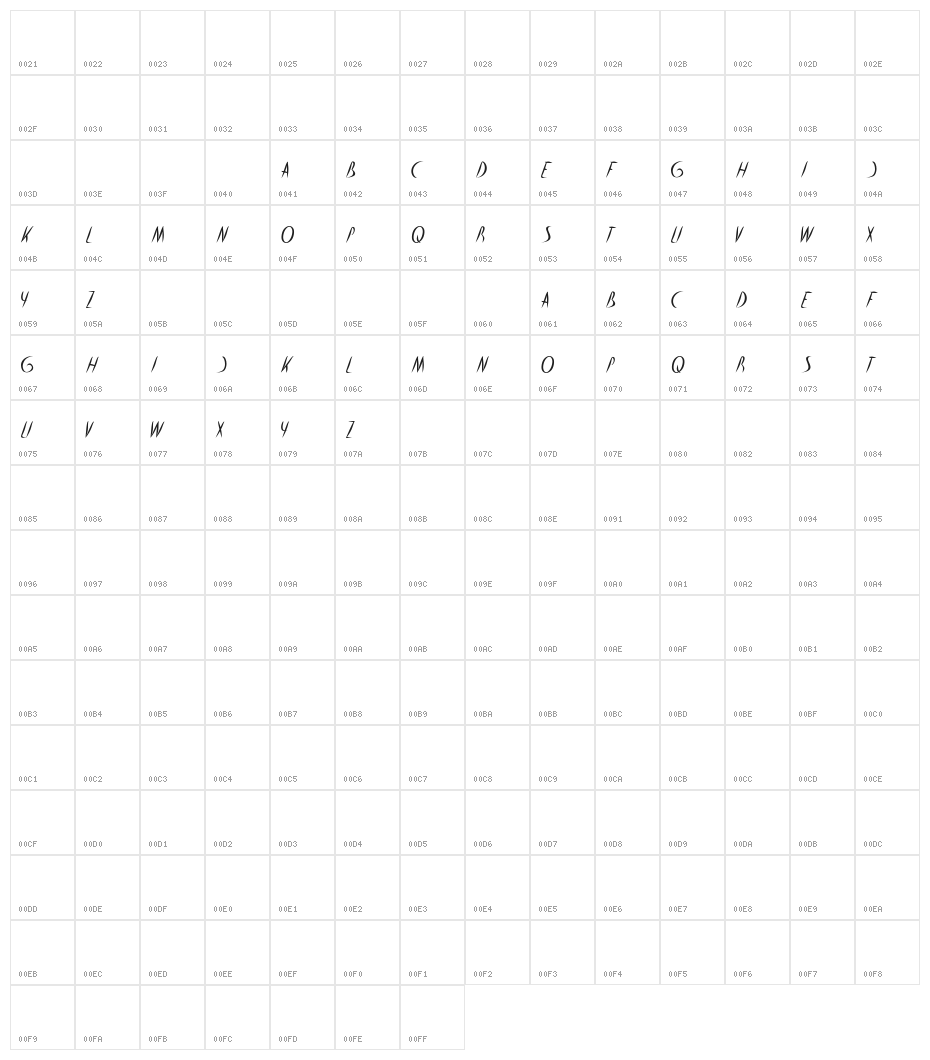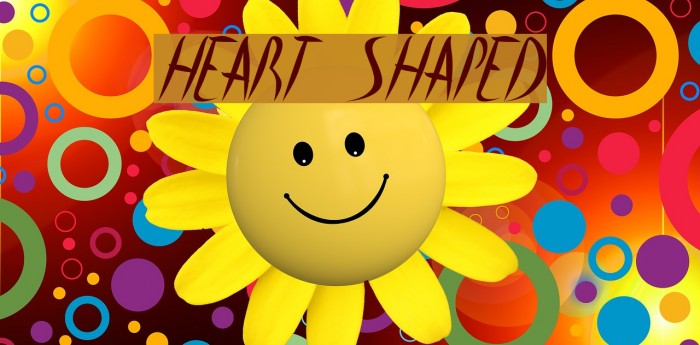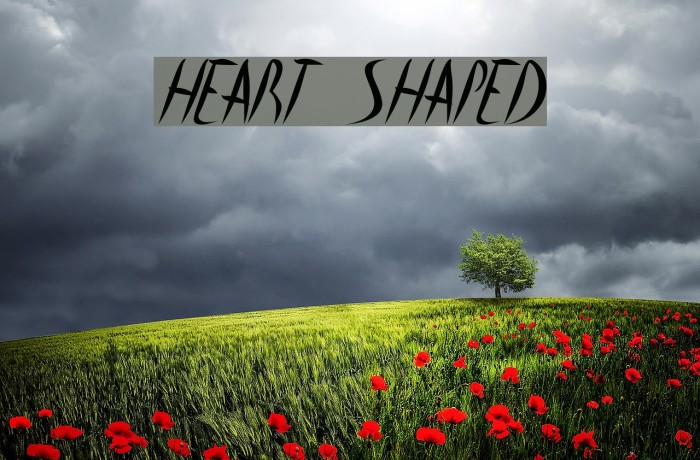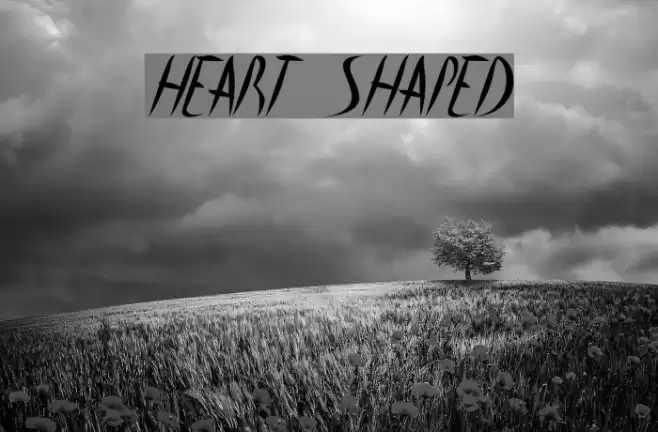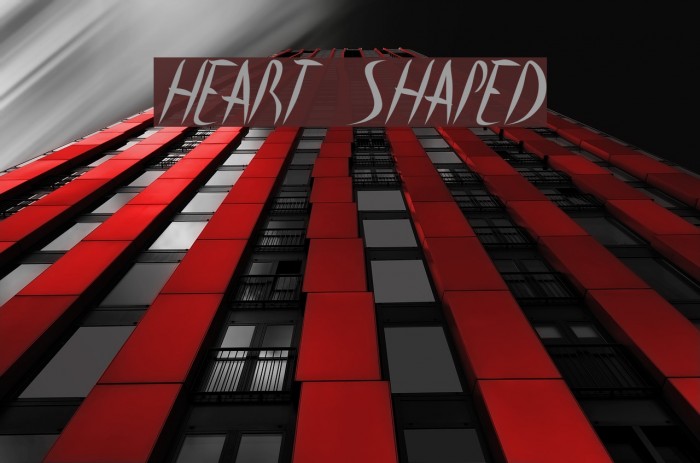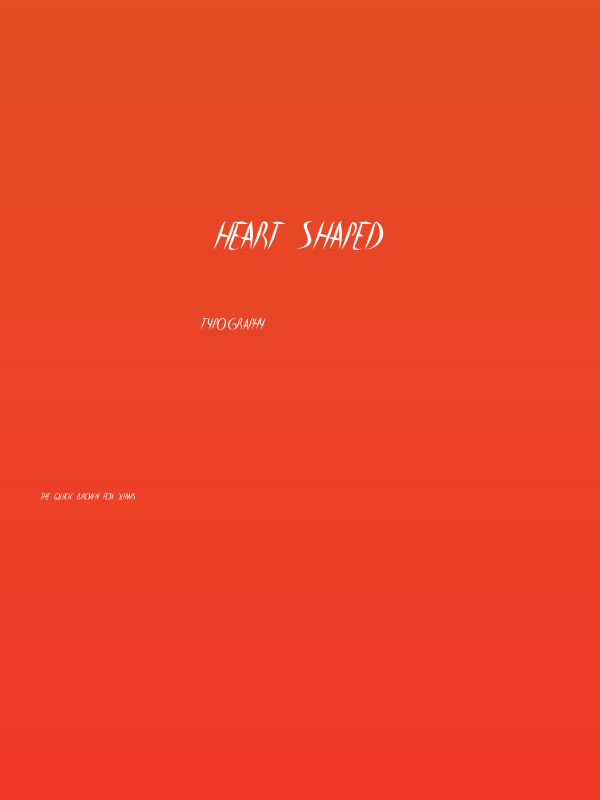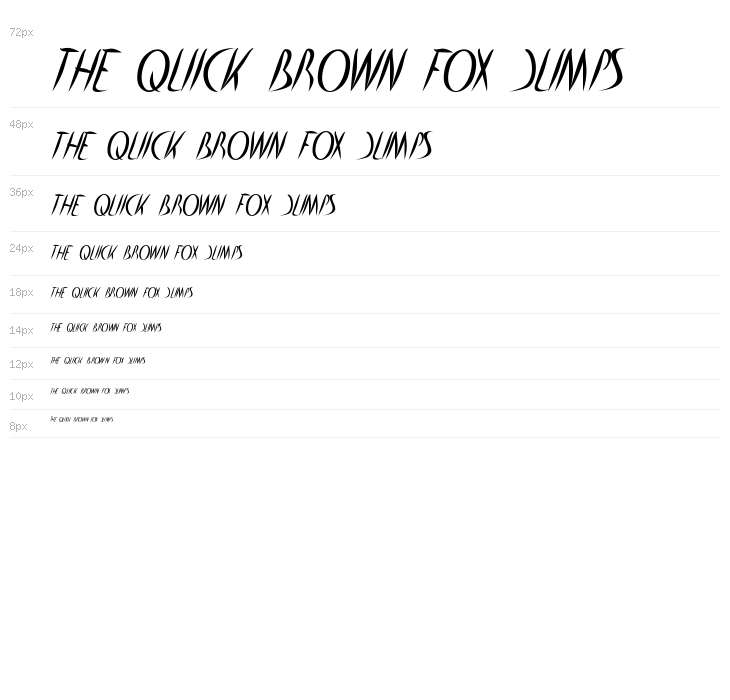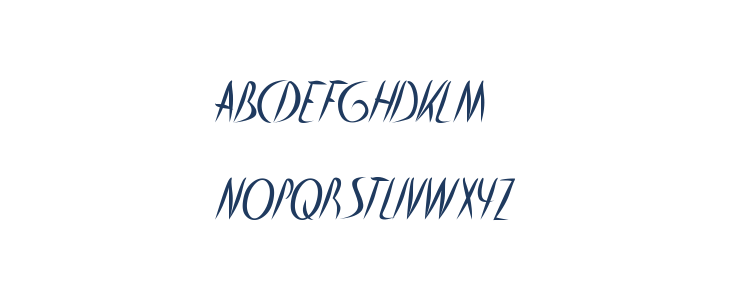
heart shaped Font
heart shaped Description
This font features a dynamic and artistic style, characterized by its sharp, angular strokes and flowing curves. The letters exhibit a sense of motion and elegance, with each character having a unique flair that adds to the overall aesthetic. The uppercase letters are particularly striking, with elongated forms and pointed terminals that give them a dramatic appearance. The lowercase letters maintain the same stylistic elements, ensuring consistency throughout the typeface. This font is designed to capture attention and convey a sense of creativity and sophistication.
| Proposed Projects | Ideal for creative projects such as branding, posters, and artistic invitations where a bold and unique style is desired. |